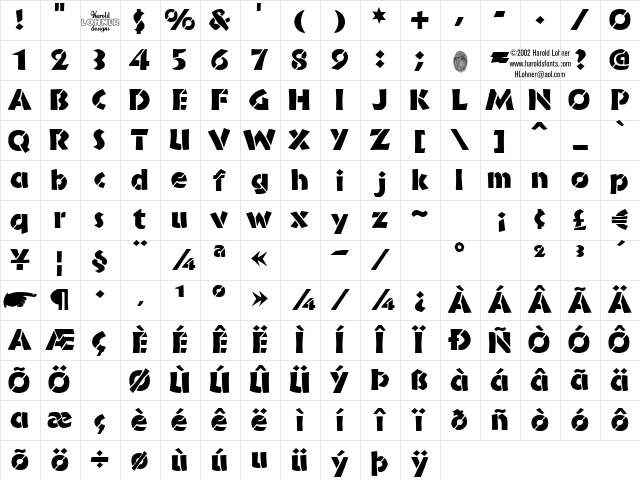
Copyright: Bride [of the Monster] Stencil Alt computer font v1.0 ©2002 Harold Lohner "  " www.haroldsfonts.com Lowercase letters are designed to work with Rudolf Koch's classic Neuland font.
Design Context for Bride StencilAlt
Bride StencilAlt borrows the utilitarian aesthetic of stencil lettering, with its characteristic cutaways and no-frills construction lending an industrial edge.
Pro Tip: Use Bride StencilAlt at large sizes on packaging, posters, or apparel where the stencil cutaways read clearly. Avoid small sizes where those gaps become visual noise.